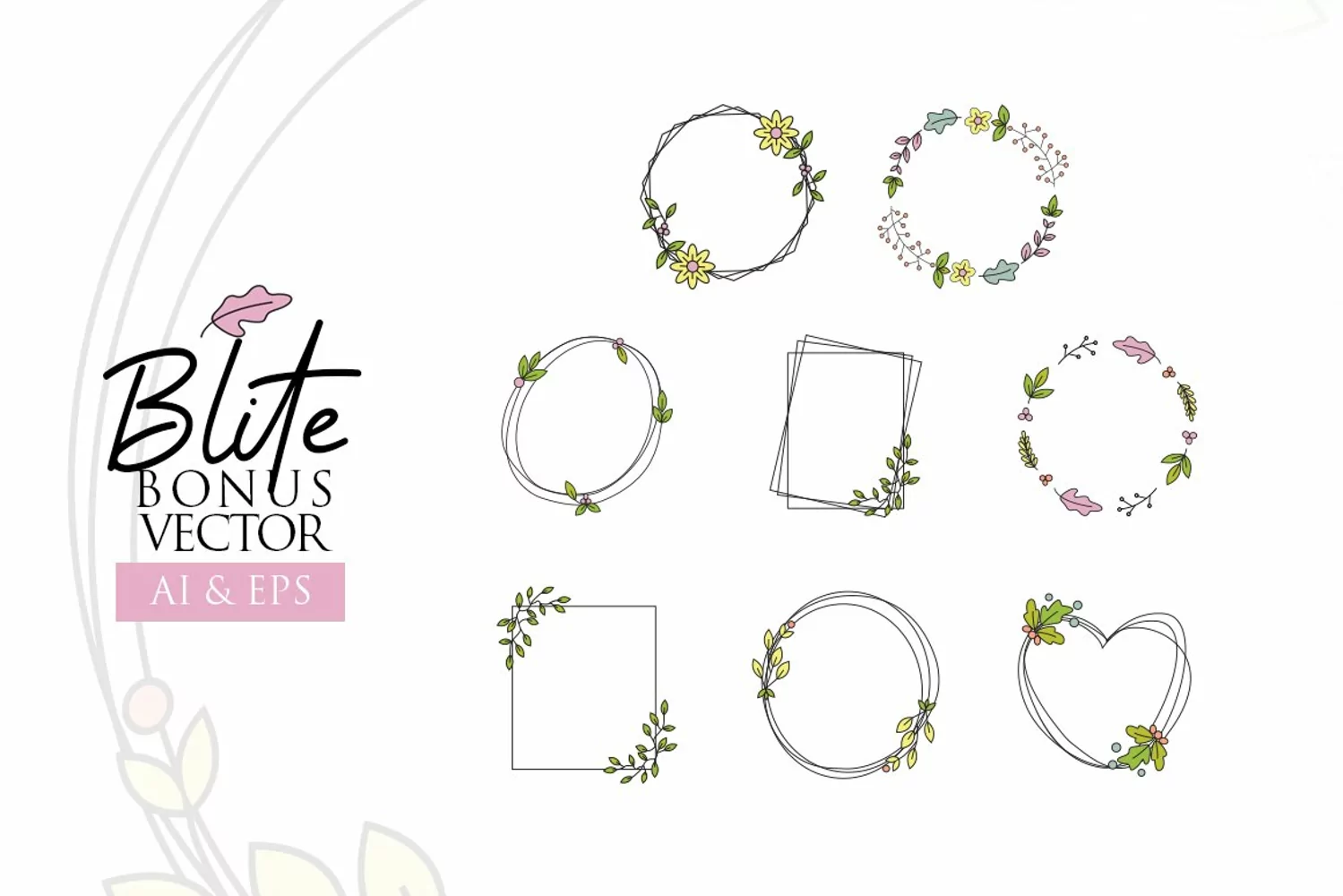
Introducing, Blite Signature a font modern calligraphy typeface for your great project. Blite signature font suitable for logo, branding, greeting card, poster and any design that you create.